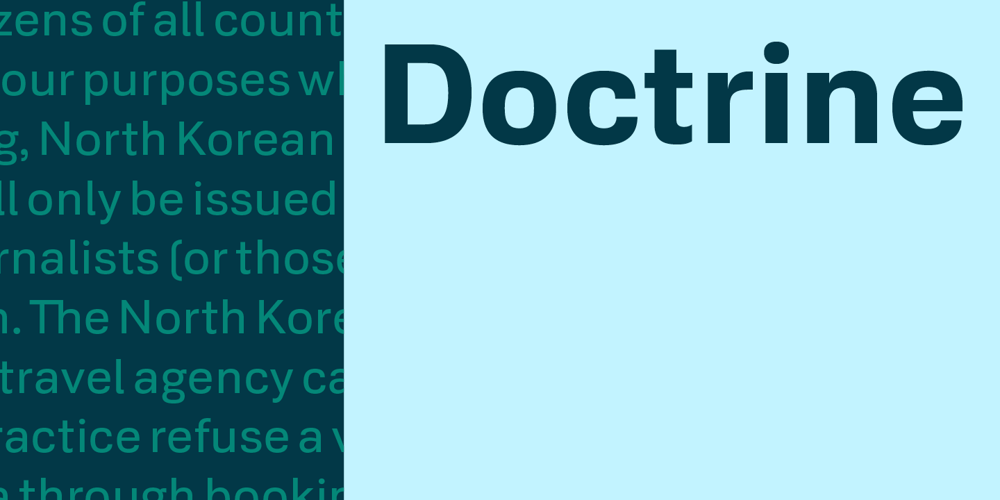
Doctrine
Doctrine font
Doctrine Font Family was designed by Jonathan Barnbrook, Jonathan Abbott, Julián Moncada and published by Barnbrook Fonts. Doctrine contains 10 styles and family package options. A contemporary sans-serif typeface with an agreeable character, Doctrine Sans is the moderate comrade of the display typeface Doctrine Stencil. From the obscure starting point of the North Korean national airline livery, Doctrine was developed to encompass a series of more mature typographic influences. Doctrine draws influence from the classic mid-century neo-grotesques and, while it retains a sense of crisp modernity, it exudes a more contemporary and human character. The rounded, lighter weights speak with graceful composure while the large x-height, low contrast and squarer, heavier, weights give Doctrine an affable charm and a persuasive voice. The alternate characters borrow elements from humanist and geometric styles and provide an idiosyncratic, experimental counterpart to the primary character set.